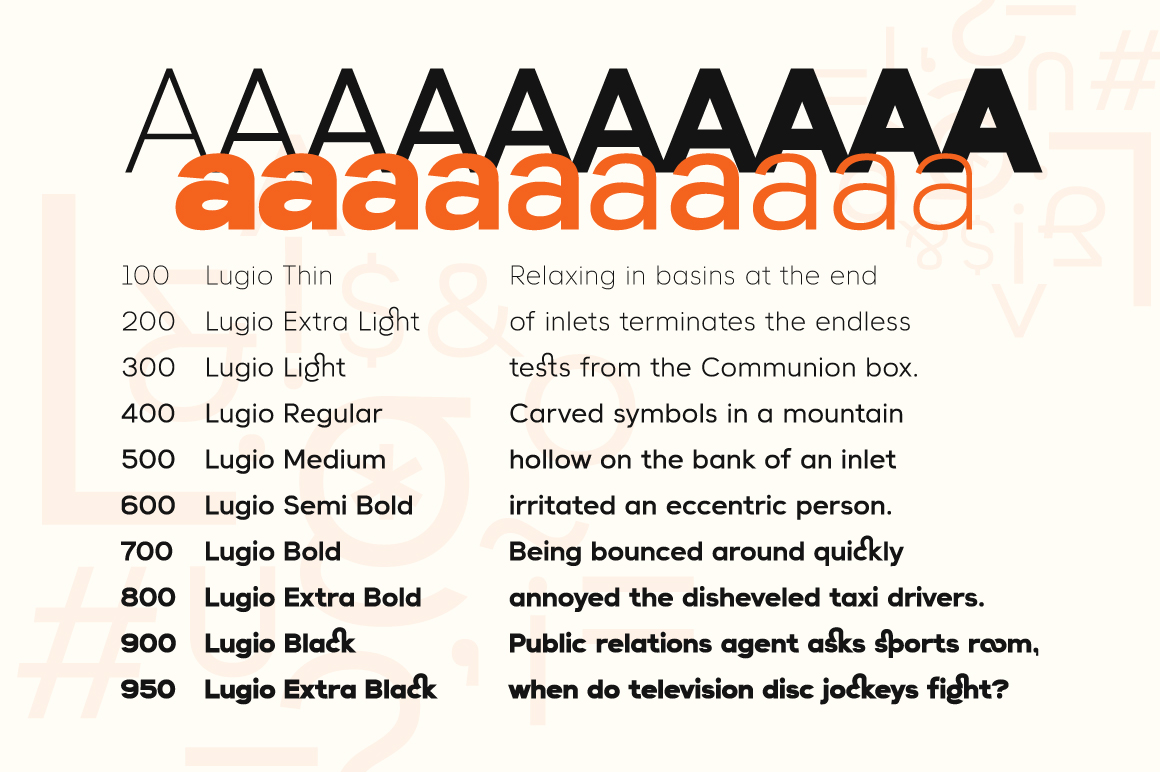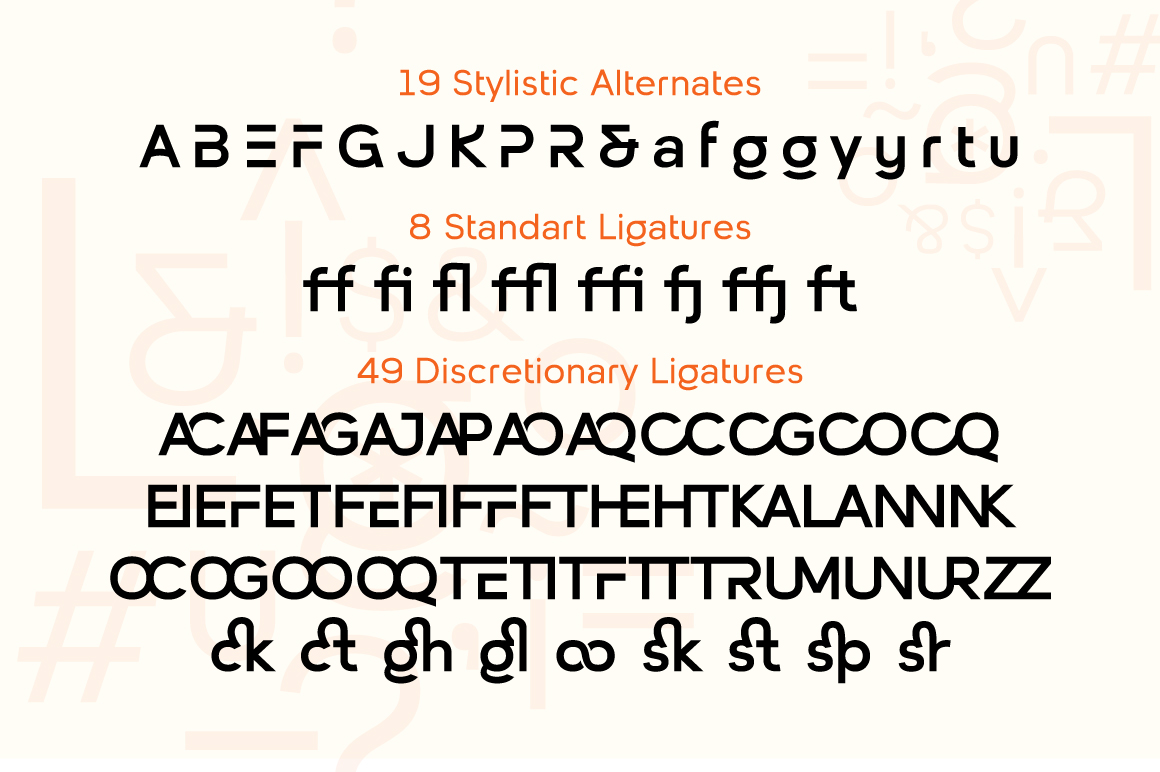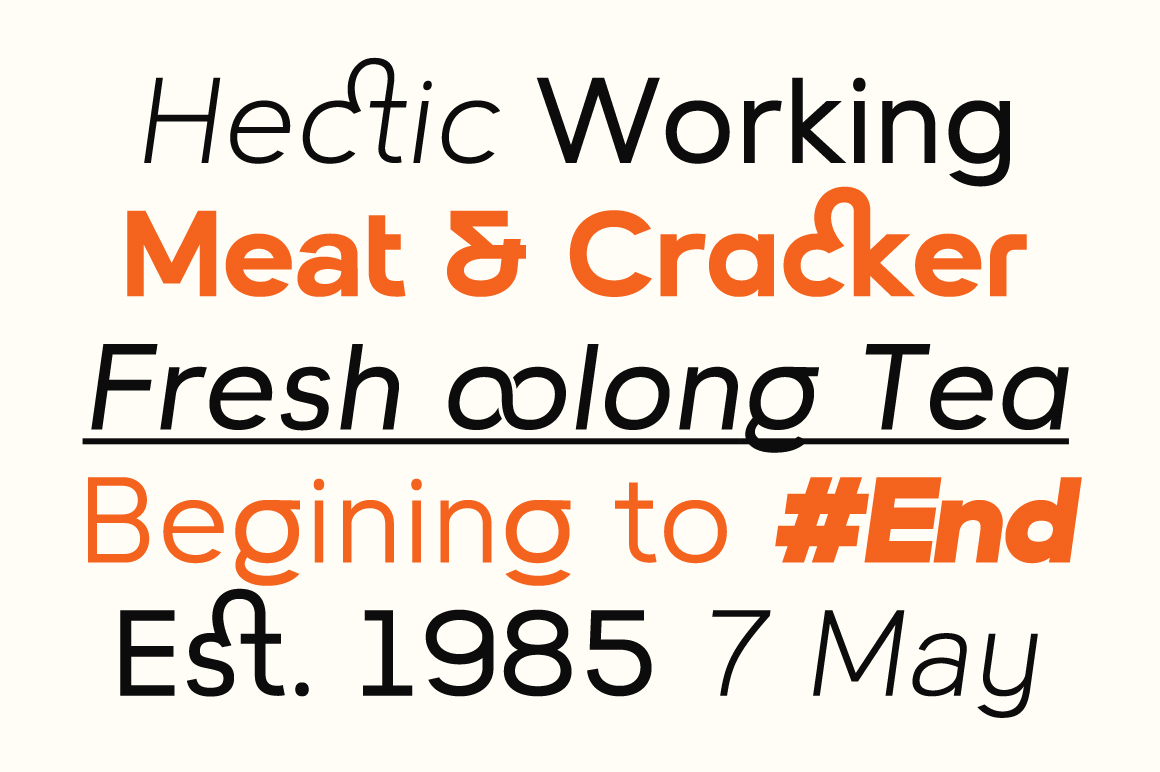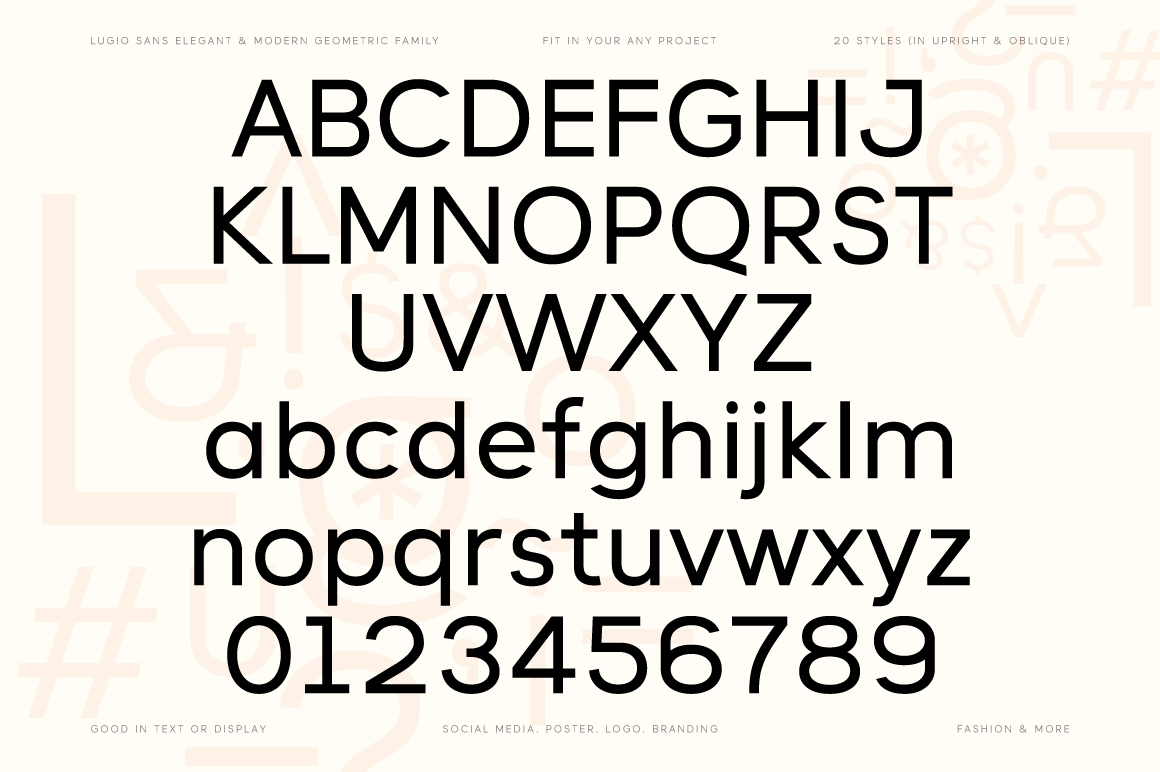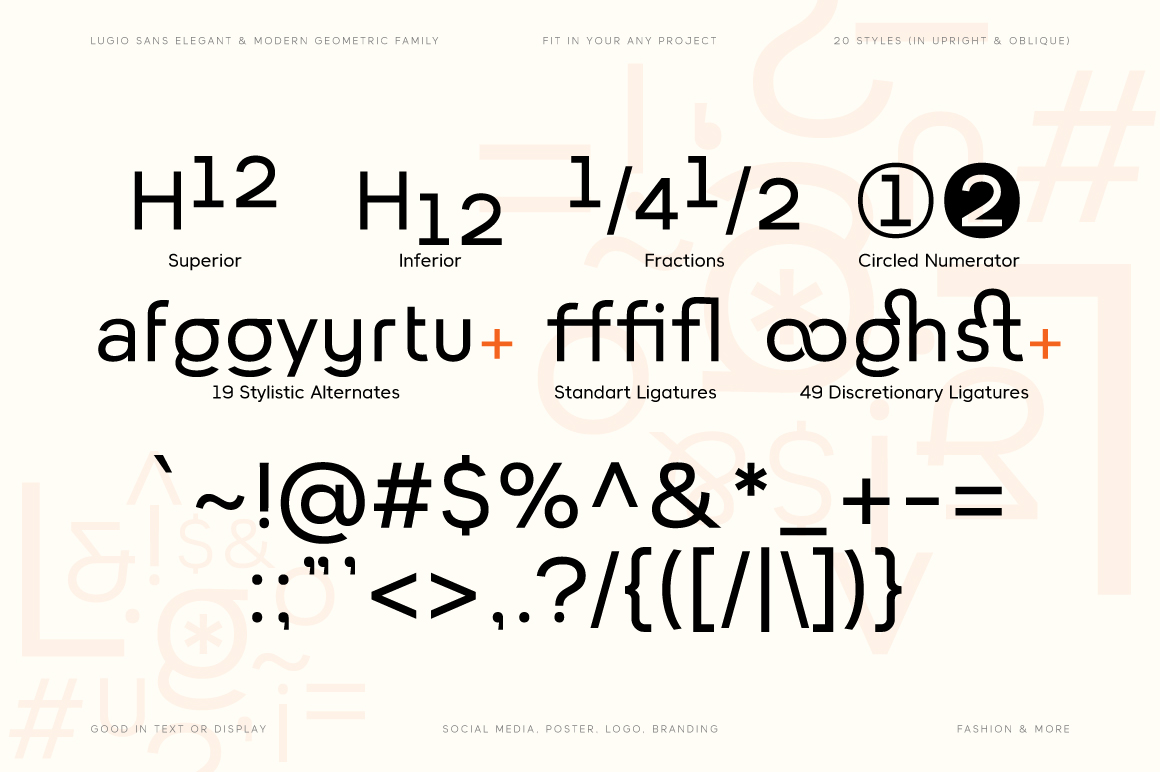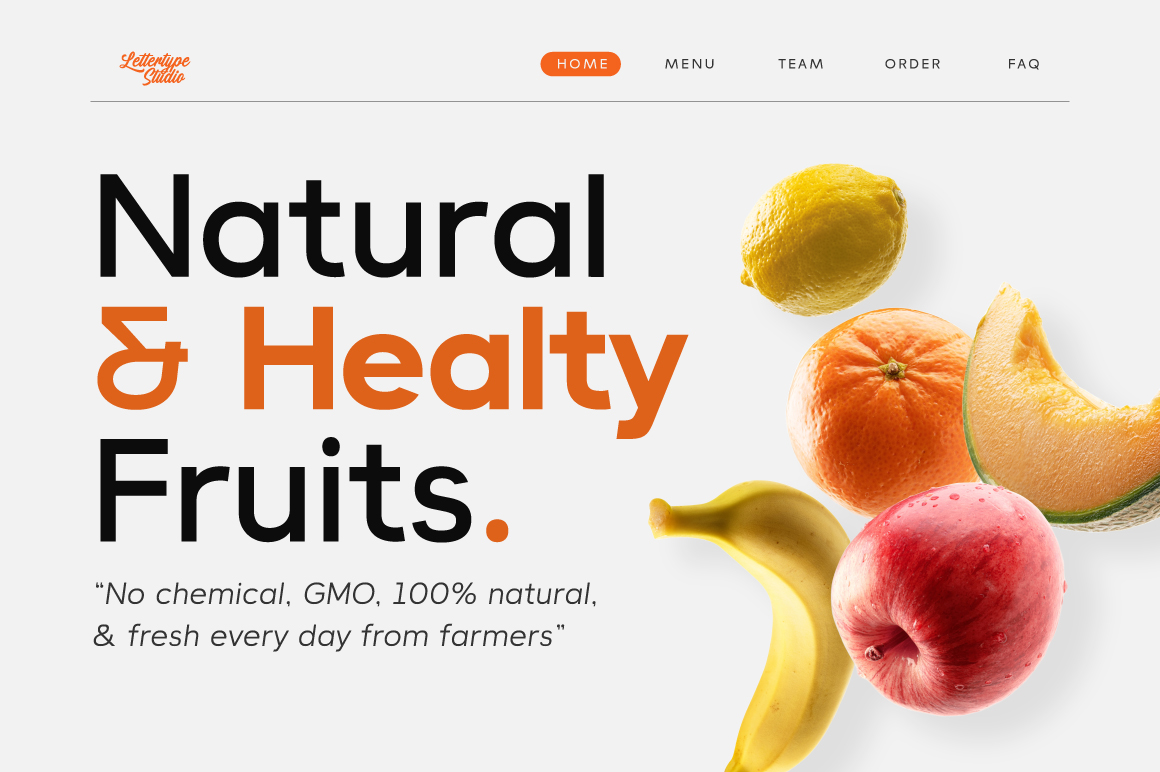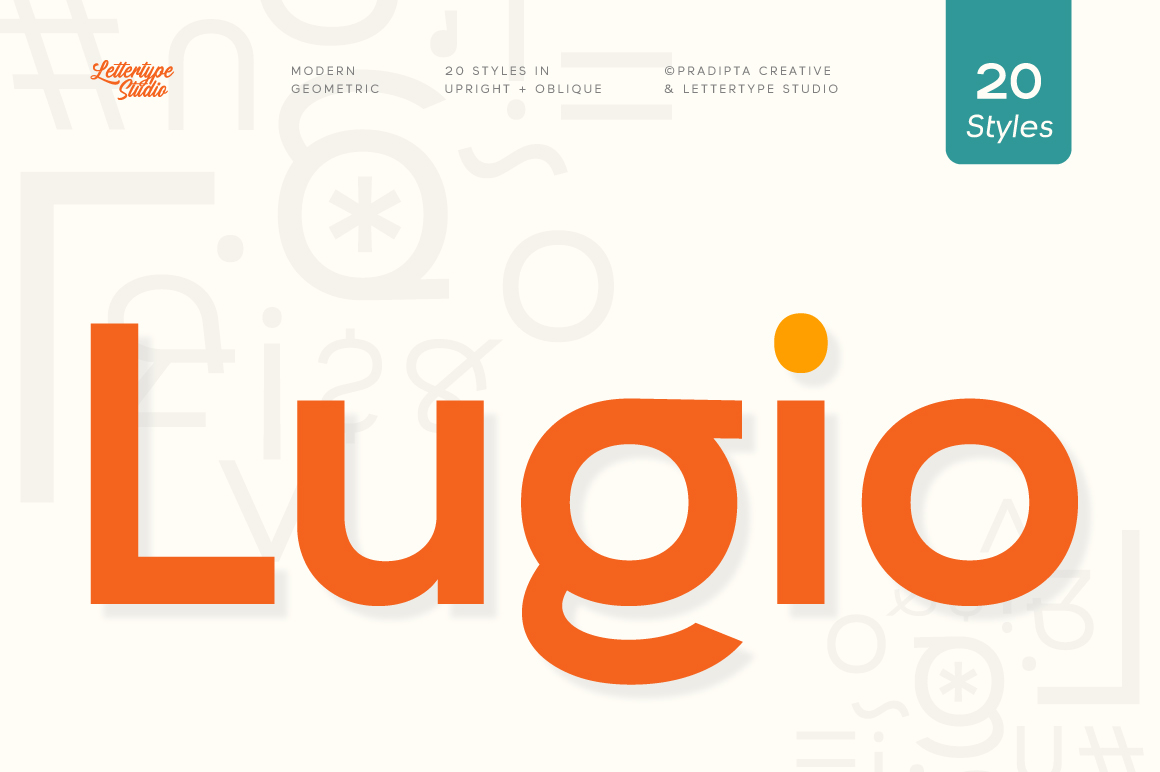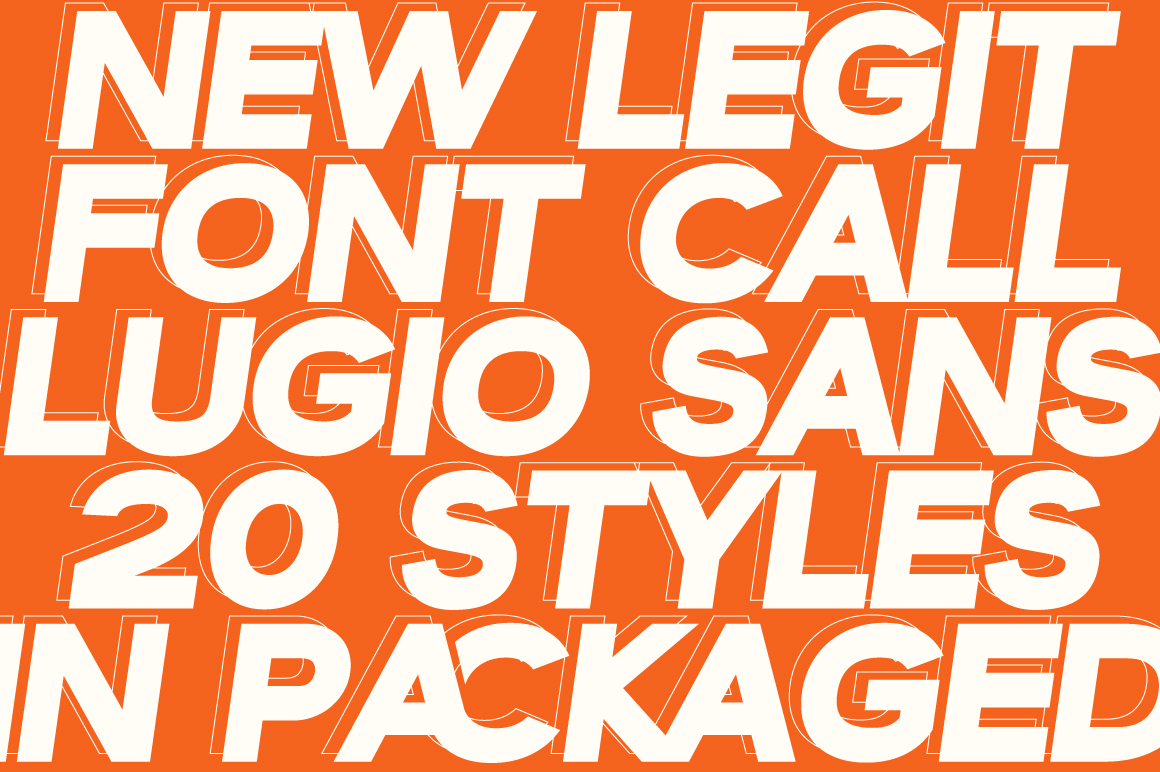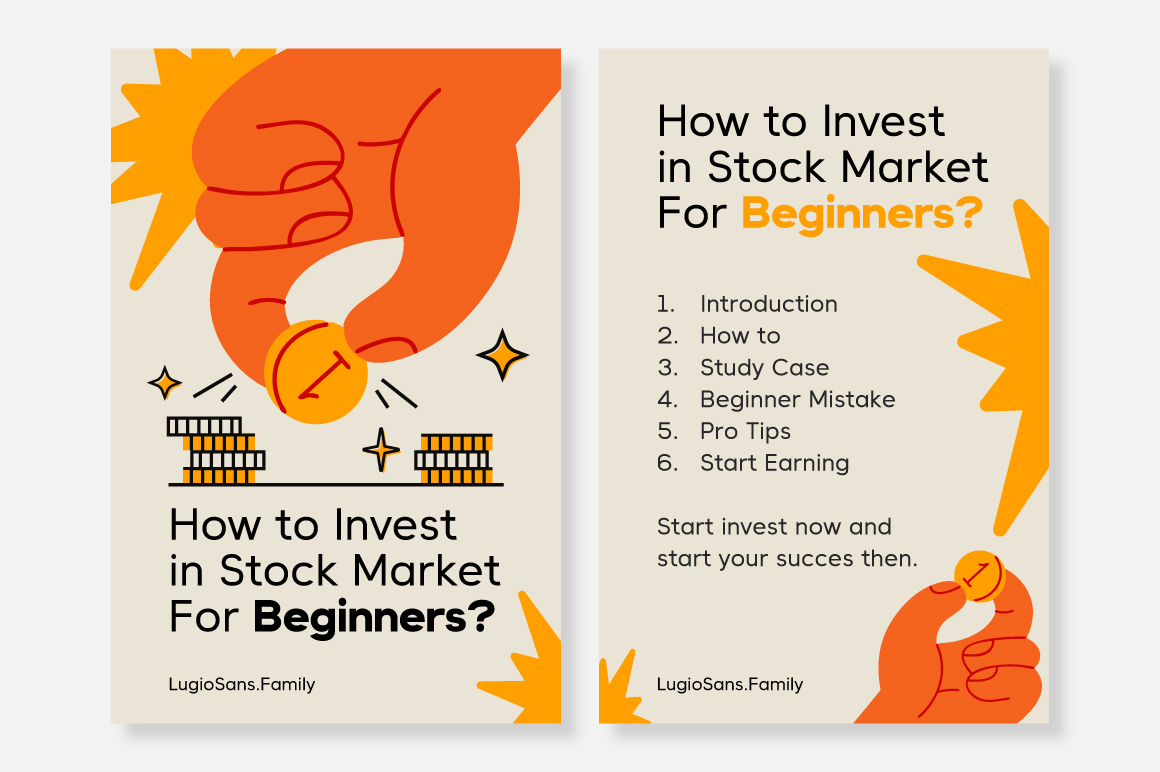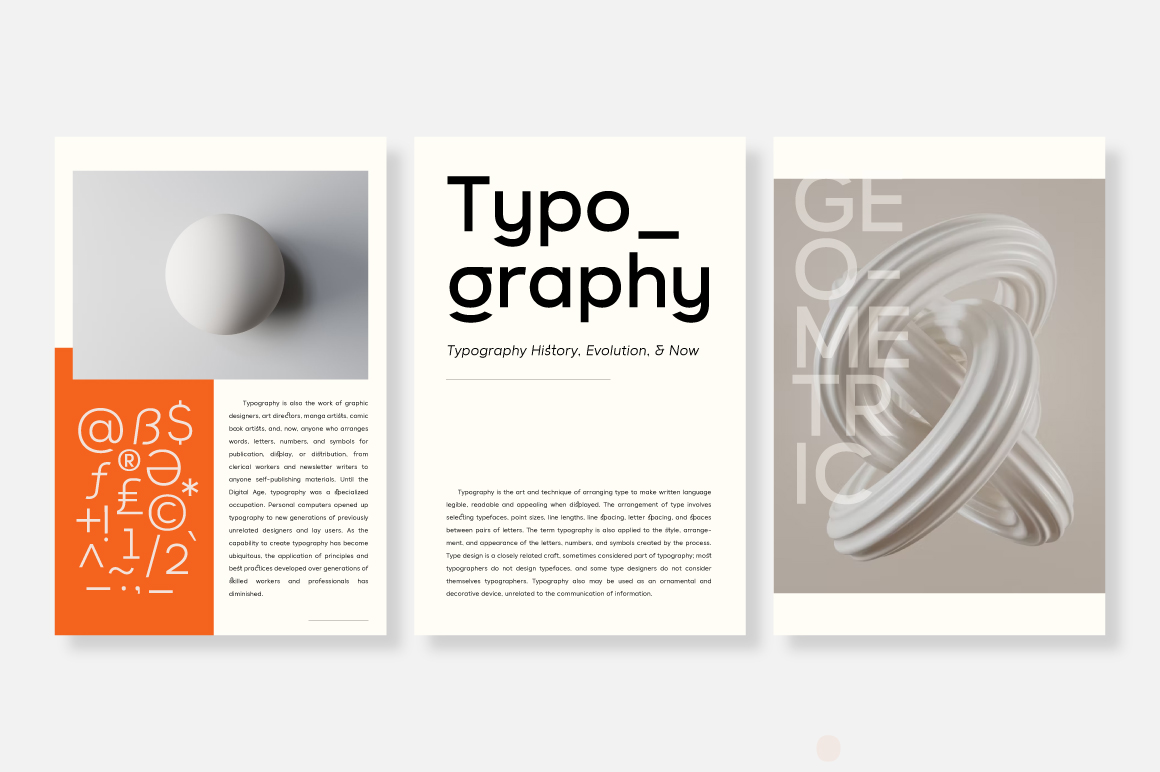
Lugio Sans is a modern grotesque sans-serif font family designed with clarity, control, and versatility in mind. With a range of 20 meticulously engineered styles, from Thin to Extra Black, it’s built to adapt — whether you’re crafting bold headlines, clean interfaces, or elegant editorial layouts. Lugio Sans is rooted in geometric precision and modernist structure, while embracing the warmth of humanist touches for effortless readability across any medium.
Featuring 19 stylistic alternates (A, B, E, F, G, J, K, P, R, &, a, f, g, g, y, y, r, t, u), 8 standard ligatures, and a rare set of 49 discretionary ligatures, Lugio Sans offers deep typographic flexibility without compromising simplicity. Designed for brands, creatives, and digital products that demand strong visual identity, Lugio balances modern minimalism with expressive detail. The name “Lugio” reflects its design philosophy — a hybrid of structure and style, born from light and logic, made for timeless use in logos, signage, packaging, branding, UI/UX, and motion graphics even in fashion.
Lugio Sans Features:
• 20 Styles
• Upright & Oblique
• 573 Glyphs Total
• 270+ Languages Support
• Corporate branding, digital startups & modern tech identity
• Editorial layouts, magazines & minimalist design systems
• UI/UX, web interfaces & motion graphics
• Product packaging, signage & clean advertising visuals
• Fashion lookbooks, posters & contemporary visual branding
Lugio Sans